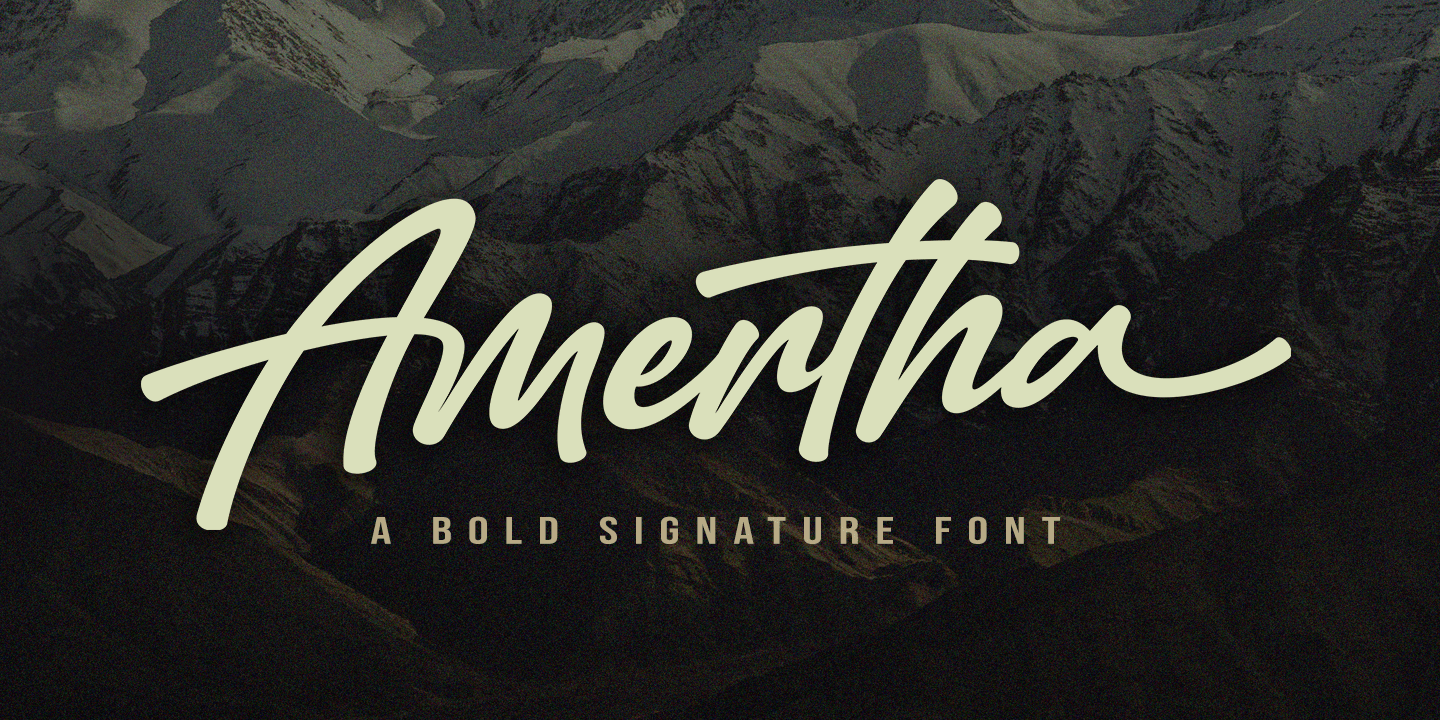
Amertha Font is perfect for various applications including wellness center branding, healing spa logos, holistic therapy signage, spiritual retreat materials, meditation app interfaces, alternative medicine packaging, energy healing graphics, sacred wellness designs, therapeutic service marketing, and transformative lifestyle campaigns.
What makes Amertha Font so exciting is its transcendent ability to channel divine healing energy and spiritual transformation through typography that radiates peace, wellness, and eternal vitality. This sacred typeface features flowing, harmonious letterforms with celestial proportions and healing-inspired details that capture the essence of ancient wisdom and modern wellness practices. The font's transformative character and spiritually-healing aesthetic make it ideal for brands that want to convey renewal, divine connection, and holistic wellness to audiences who seek spiritual healing, energy transformation, and sacred wellness experiences.
Amertha Font family includes multiple weights and styles: Light, Regular, Medium, Bold, Healing, Condensed, Extended, Sacred, and divinely crafted Italic variants. Each family member maintains the font's signature healing essence while offering different levels of visual impact and stylistic flexibility for diverse wellness and spiritual applications.
The Amertha Font Free Download provides designers with access to a healing-inspired typeface that excels in wellness and spiritual markets. Whether you're creating holistic healing brand identities, designing therapeutic marketing materials, or developing transformative digital wellness experiences, this font delivers the sacred aesthetic needed to connect with spiritually-minded audiences and wellness seekers. Its healing styling and spiritual essence make it particularly effective for wellness centers, spiritual practitioners, and holistic healing businesses.
Typography healers will appreciate the sacred geometry and transformative energy in Amertha Font's design. The font features divinely flowing letterforms with healing proportions, optimized spacing for wellness applications, and carefully crafted details that ensure excellent readability while maintaining its sacred character. From healing center signage to spiritual retreat materials, this typeface maintains its transformation and sacred appeal across all wellness contexts.
For wellness web designers, Amertha Font provides outstanding performance in healing digital environments and spiritual platforms. The font's technical specifications are optimized for peaceful presentations while preserving the flowing, sacred edges that define its healing character. Its versatility makes it suitable for both static wellness content and interactive spiritual experiences.
Creative professionals working in holistic healing, spiritual wellness, energy therapy, and transformative services will find Amertha Font to be an essential tool for projects requiring sacred visual communication. The font's ability to convey healing, transformation, and spiritual connection makes it invaluable for brands targeting wellness-conscious and spiritually-seeking demographics.
Design agencies specializing in wellness and spiritual brands appreciate Amertha Font's versatility in creating memorable healing identities that resonate with transformative communities.